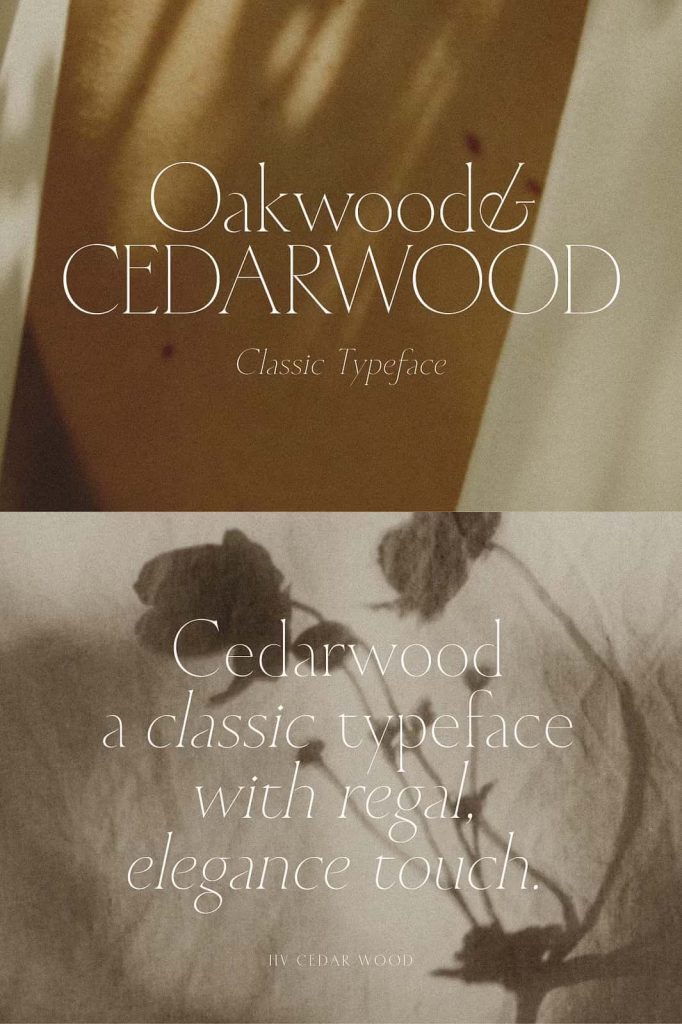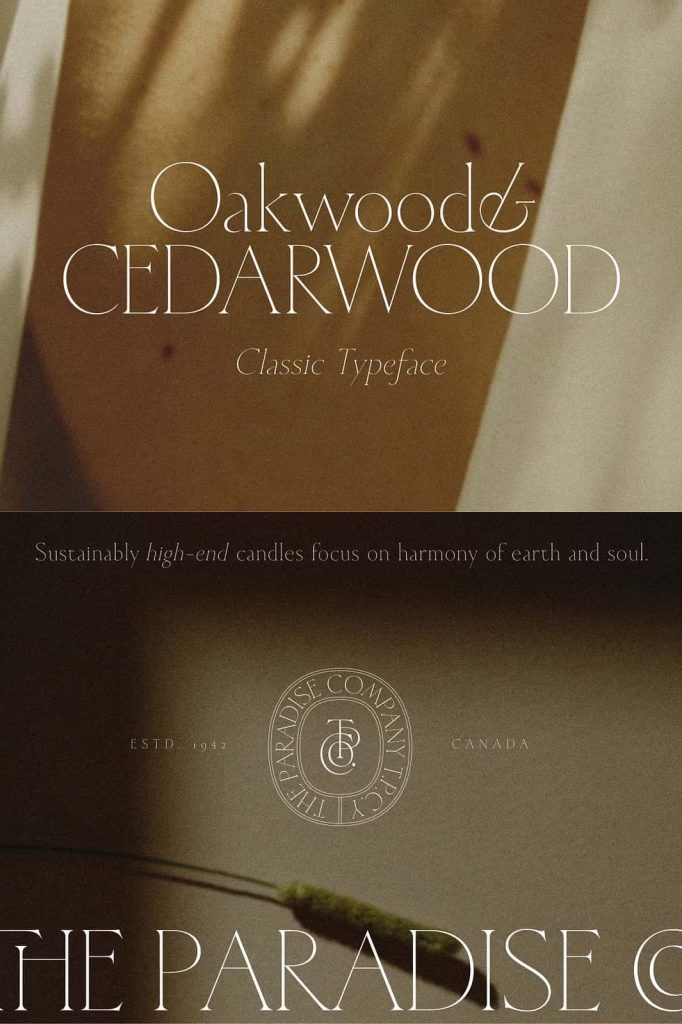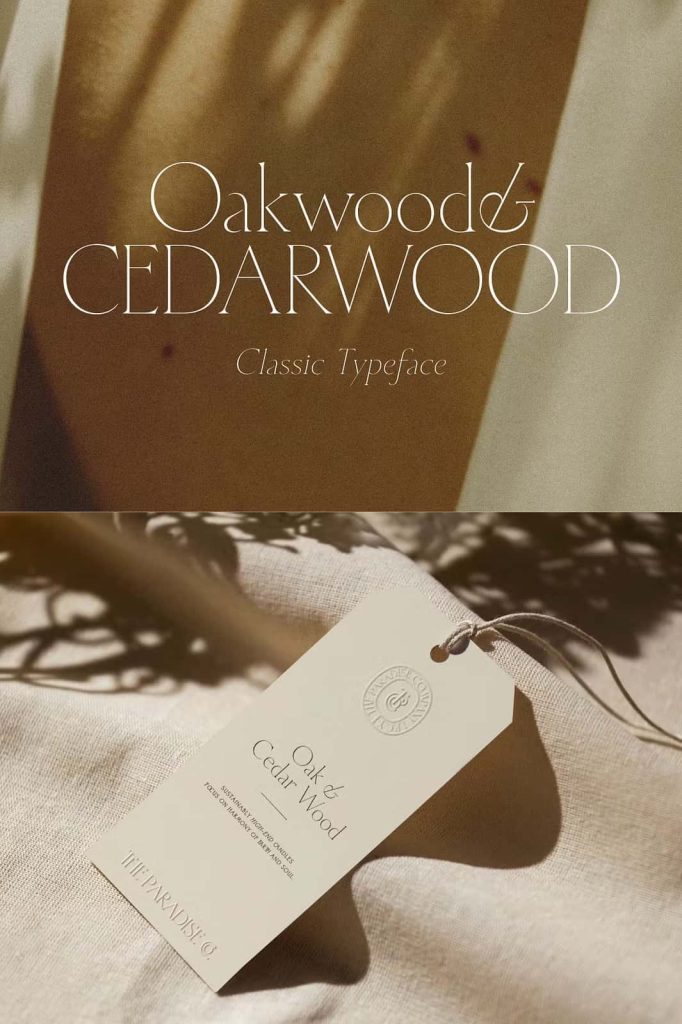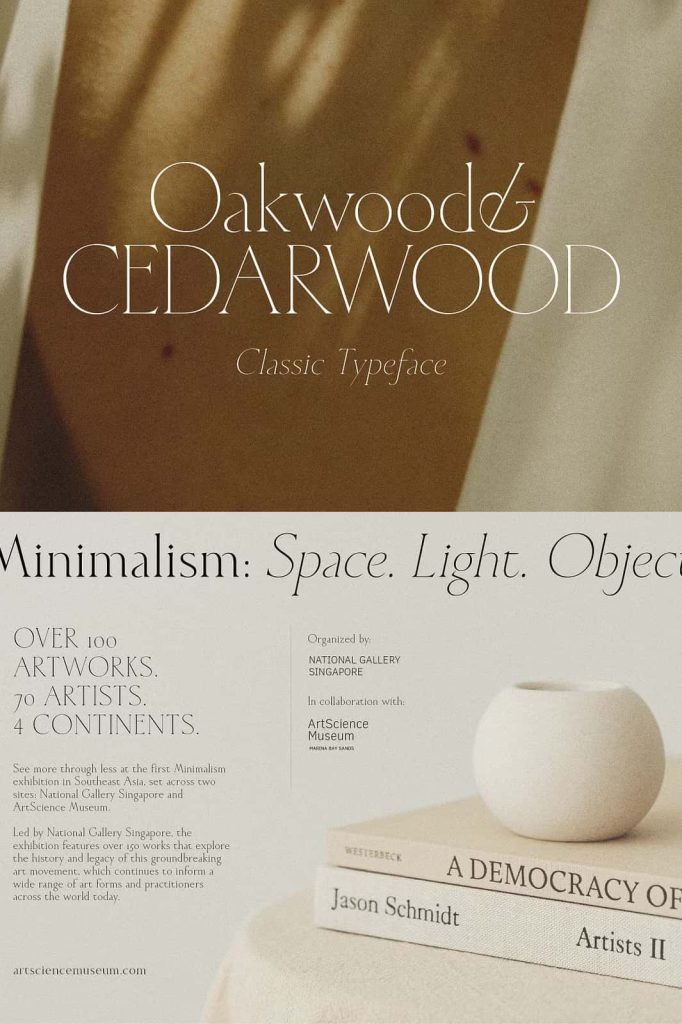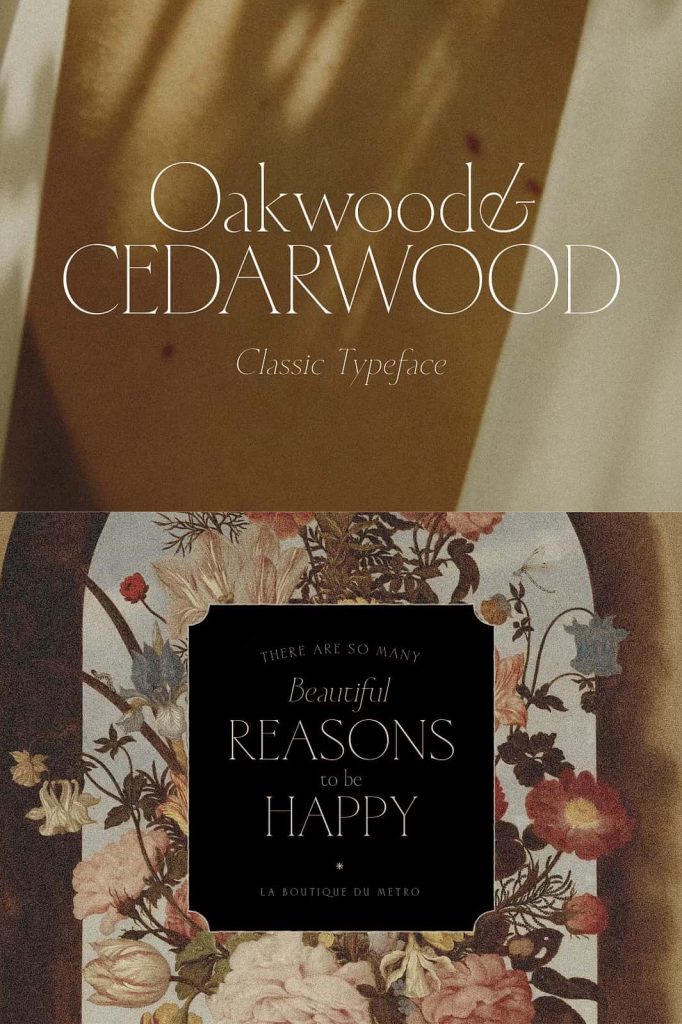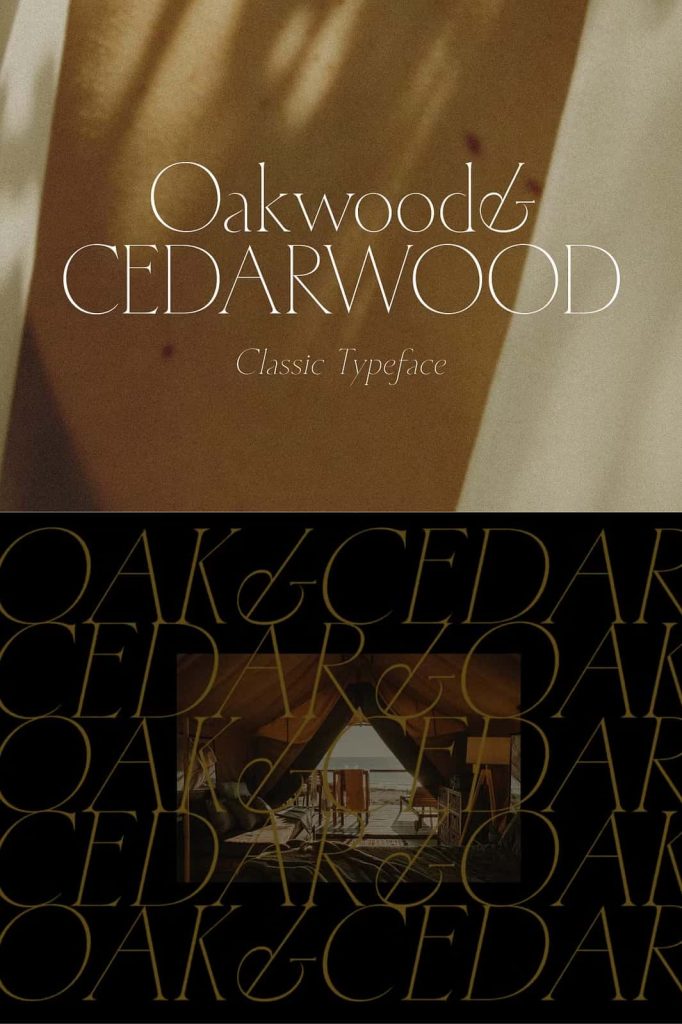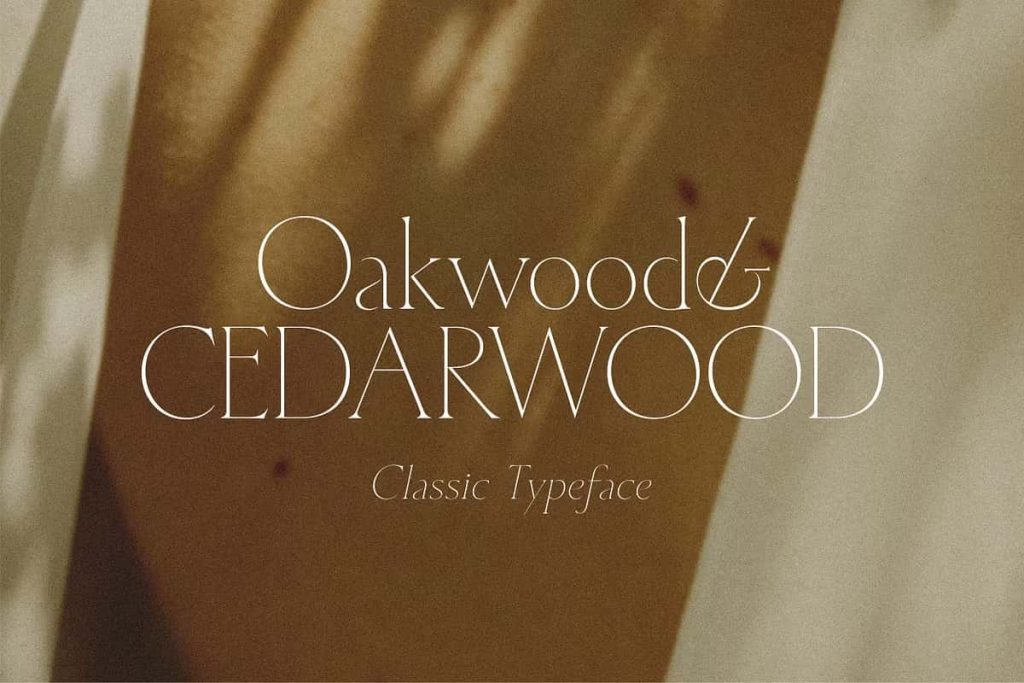
Cedarwood – Classy SerifleastedJuly 8, 2025Fonts Cedarwood is a classic serif with a regal, elegant touch. Inspired by the work of the old masters Download